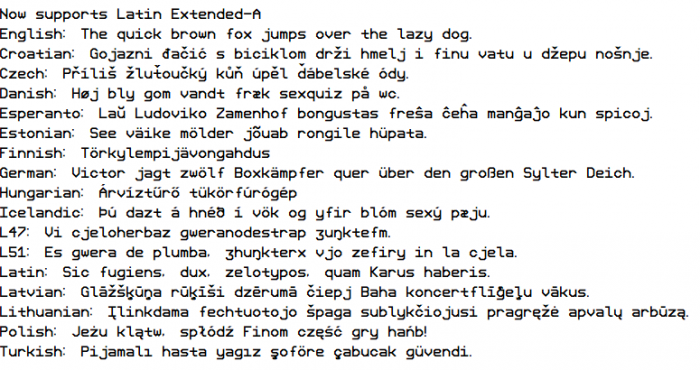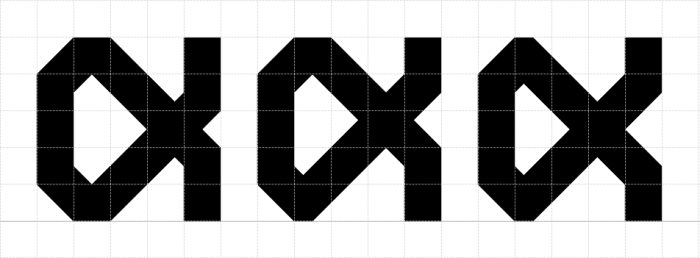
NPS Octagon Mono is a monospace version of NPS Octagon.
NPS Octagon Mono now supports Latin Extended-A.
Currently deciding which lowercase alpha look best. Anyone have any input?
I'm thinking #2 looks the best…
personally i like #1
I really like #6
Another point of view ... Actually, the alpha seems like a loop to me.
@elmo ooh i like the first one of those
I'll go with #2 and maybe put elmo's 1st as an alt.
Now supports Cyrillic. However, glyphs keep getting cut off at the top line, when they should go above: shown is ÀàÉéÏïÕõČčΏώЙй.
The line labeled Top is actually the ascent line (It is not the Cap Height) and anything above it will be clipped in certain software… Maybe there could be 2 more guides labeled Caps and X-Ht since the FontStruct API does have the Cap Height and X-Height inside the font data
Finished Cyrillic and Cyrillic Supplement. Also fixed the ascender problem.
Jesus those UPA superscripts are hard to do. You've got to fit a lot into a tiny space.
I think the Arabic-Indic digit two should look more like the Greek capital letter gamma according to my Arabic writing
And also, the Arabic-Indic digit one should more like a vertical line because it's easily confusable with the Arabic-Indic digit six
should look more like*